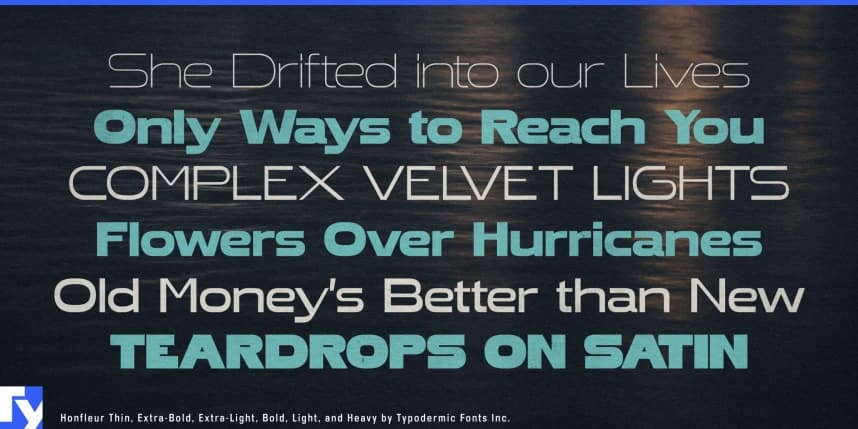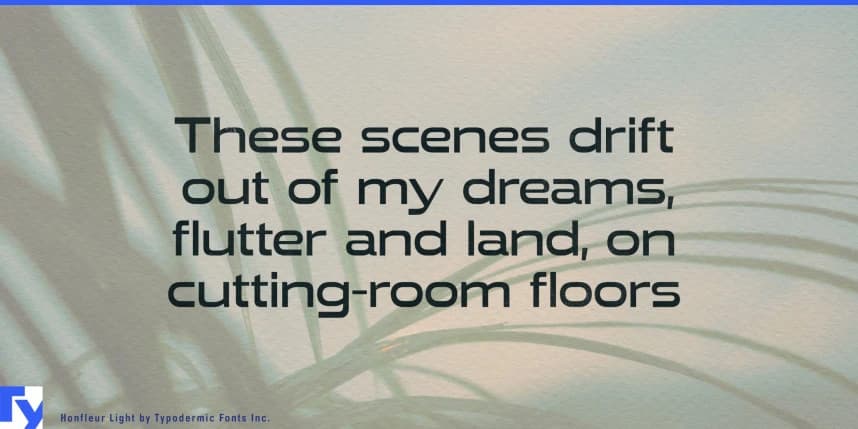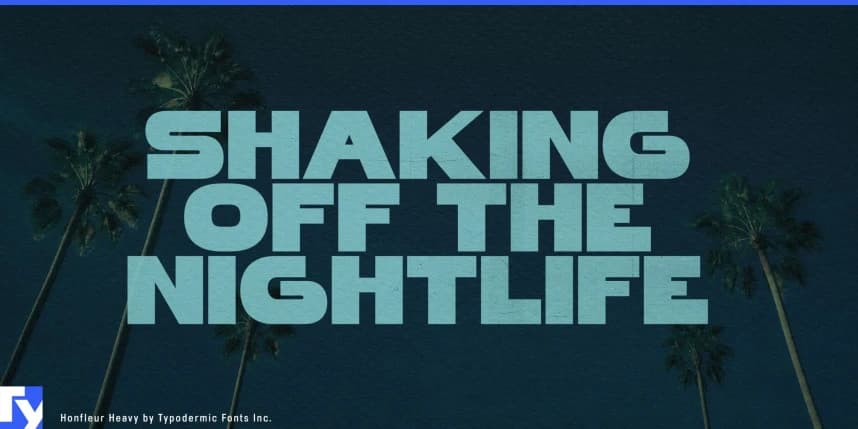
Honfleur Font
Honfleur Font makes a statement without raising its voice. Its exceptionally wide, geometric letterforms plant themselves firmly on the page, each stroke even and assured. Corners are softened, giving its modernist precision a touch of human warmth